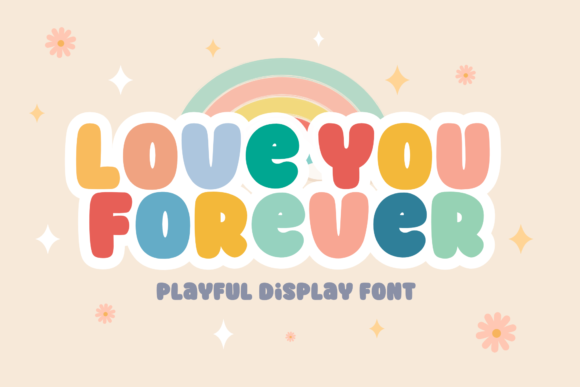
Introducing Love You Forever Font - A Stroke of Brilliance for Your Creative Endeavors!
Journey into the realm of visual enchantment with Love You Forever Font, a remarkable creation by Hayletter Creative. Prepare to be captivated by its bold and adorable nature, crafted with meticulous care to become your ultimate go-to font for plasma cutting projects. This font exudes an aura of casual charm, making it effortlessly readable and adaptable to a myriad of designs.
Love You Forever Font possesses an uncanny ability to elevate ordinary words into captivating statements, adding a touch of playfulness and personality to your projects. Its versatility knows no bounds, seamlessly blending into busy backgrounds or standing tall as a striking headline. Unleash your creativity and let Love You Forever Font transform your designs into masterpieces that resonate with your audience.
With Love You Forever Font, precision meets beauty. Each character is meticulously designed to ensure a smooth and clean cut, resulting in plasma designs that exude elegance and sophistication. Whether you're a seasoned professional or just starting your plasma cutting journey, this font will become your trusted companion, enabling you to effortlessly create stunning signage, personalized gifts, and intricate home décor.
Embrace the Love You Forever Font and embark on a creative odyssey where imagination reigns supreme. Let your designs bloom with charm and personality, capturing the hearts and minds of your customers. Experience the joy of crafting projects that speak to the soul, leaving a lasting impression on all who behold them.